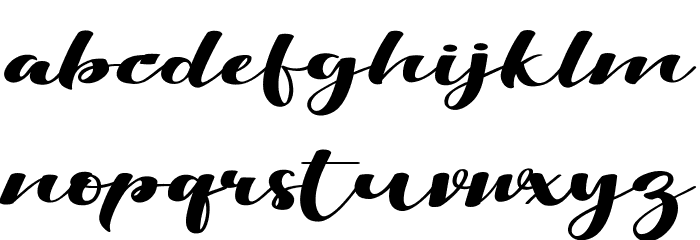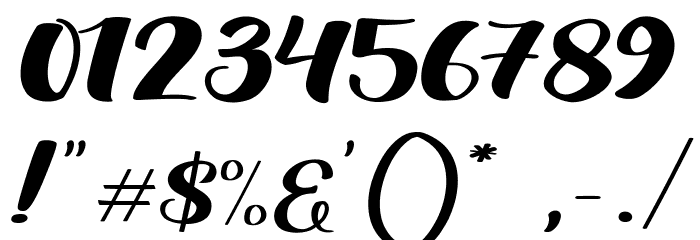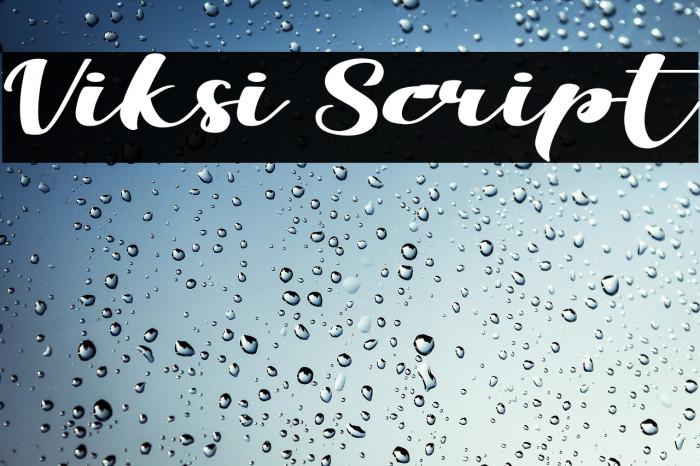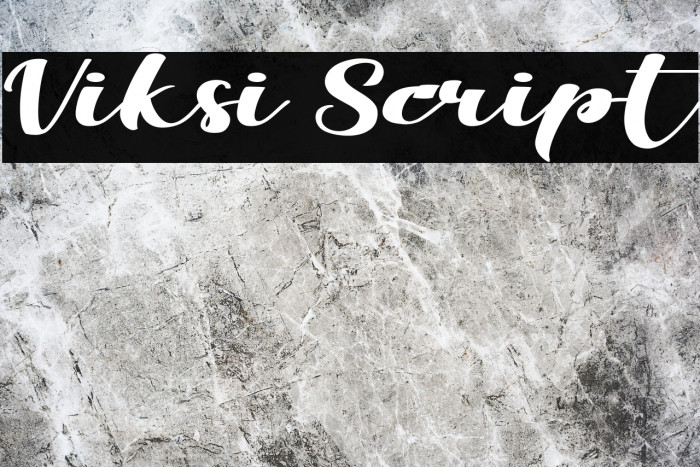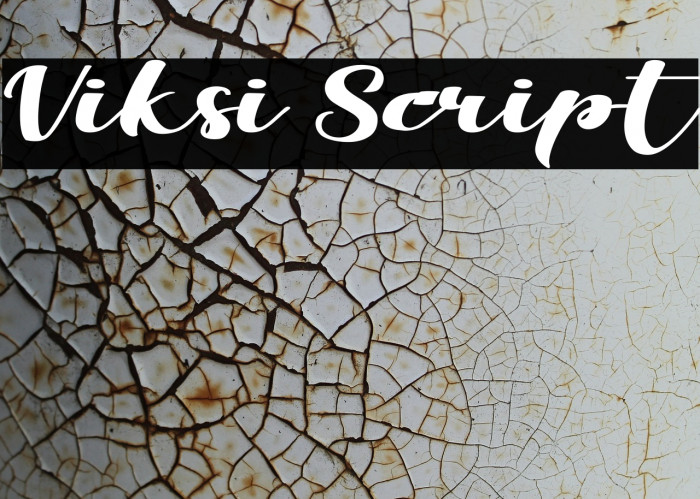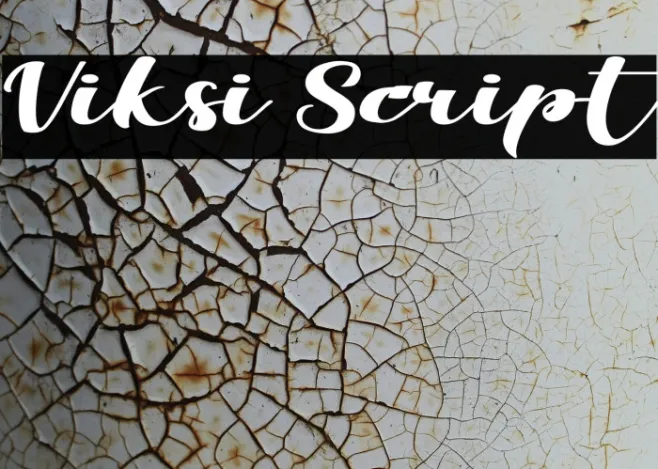
Viksi Script Font
This font exudes elegance and fluidity, characterized by its smooth, flowing script style. The letters are interconnected, creating a sense of continuity and grace. The uppercase letters are bold and prominent, while the lowercase letters maintain a consistent flow, enhancing readability. The numerals are stylishly integrated, maintaining the overall aesthetic. Special characters are crafted with the same attention to detail, ensuring a cohesive look throughout. The font's design is ideal for projects that require a touch of sophistication and charm.
An elegant and fluid script font with interconnected letters.
- Proposed Projects: Ideal for wedding invitations, elegant branding, and sophisticated logo designs.
- Overall Style: Elegant
- Use Case: Logos, Invitations, Branding